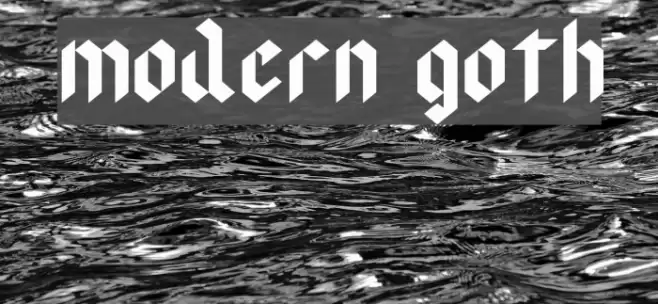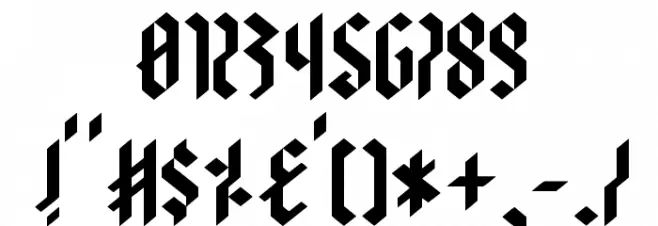
modern goth Font
modern goth Description
This font features a bold, angular design reminiscent of traditional Gothic script but with a modern twist. The characters are sharply defined with a distinct geometric structure, creating a striking visual impact. The uppercase letters are particularly prominent, with strong vertical and diagonal lines that convey a sense of strength and authority. The lowercase letters maintain the same angular style, ensuring consistency throughout the typeface. Numbers and special characters are equally bold, making them stand out in any design. This font's unique style is perfect for projects that require a dramatic and eye-catching appearance.
A bold, angular font with a modern Gothic style from Uncategorized fonts.
- Proposed Projects: Ideal for branding, posters, album covers, and any design needing a dramatic flair.